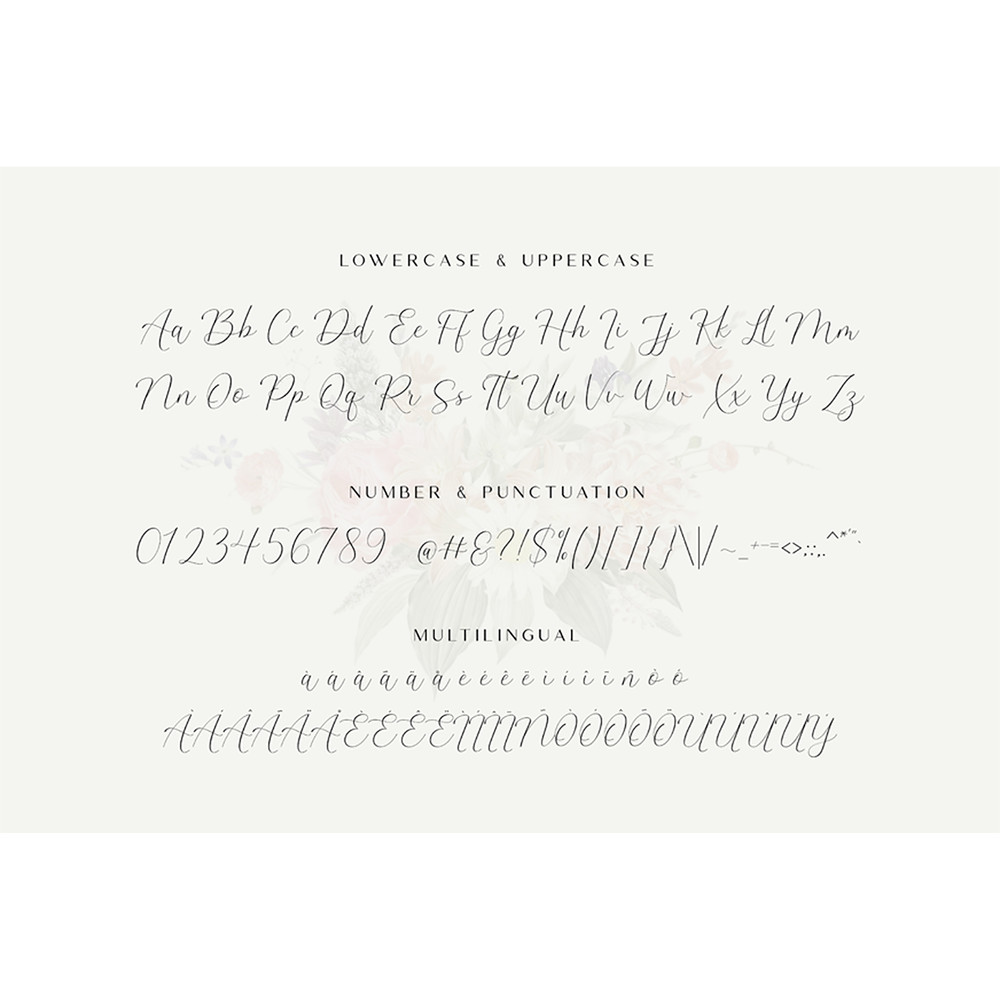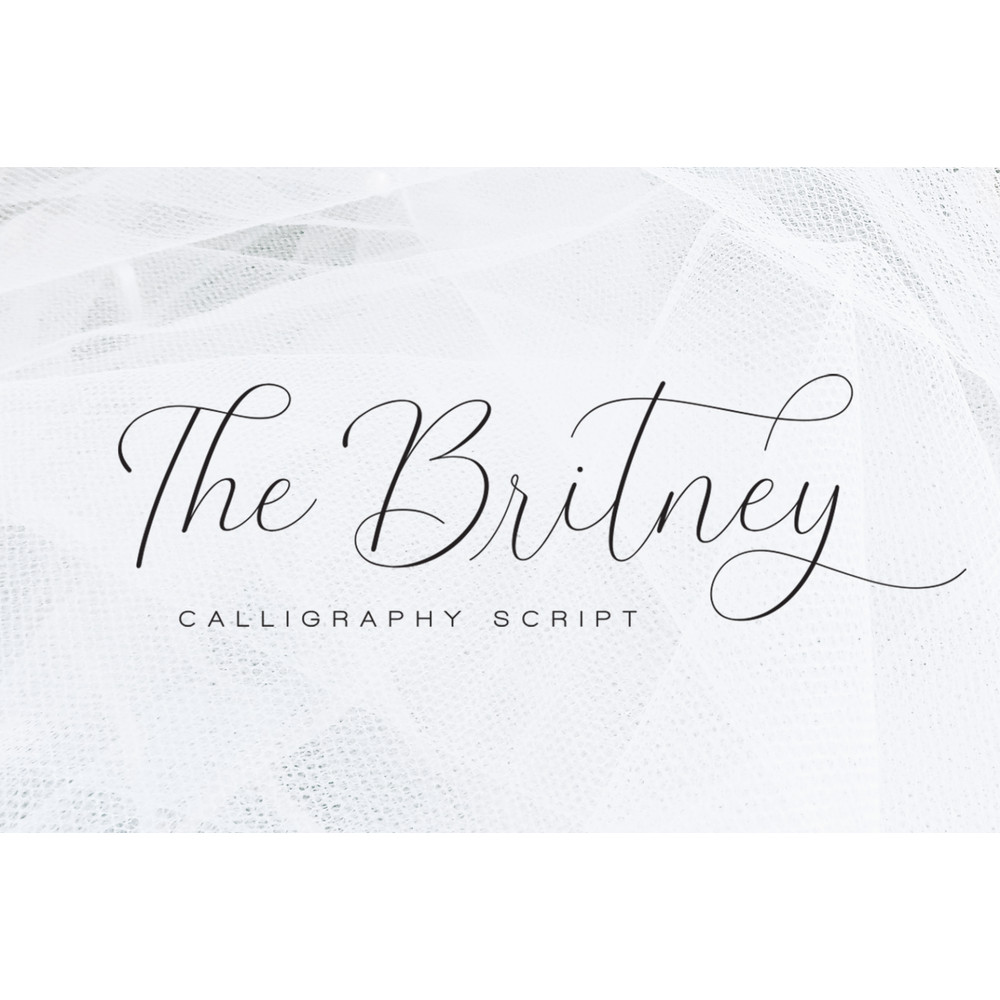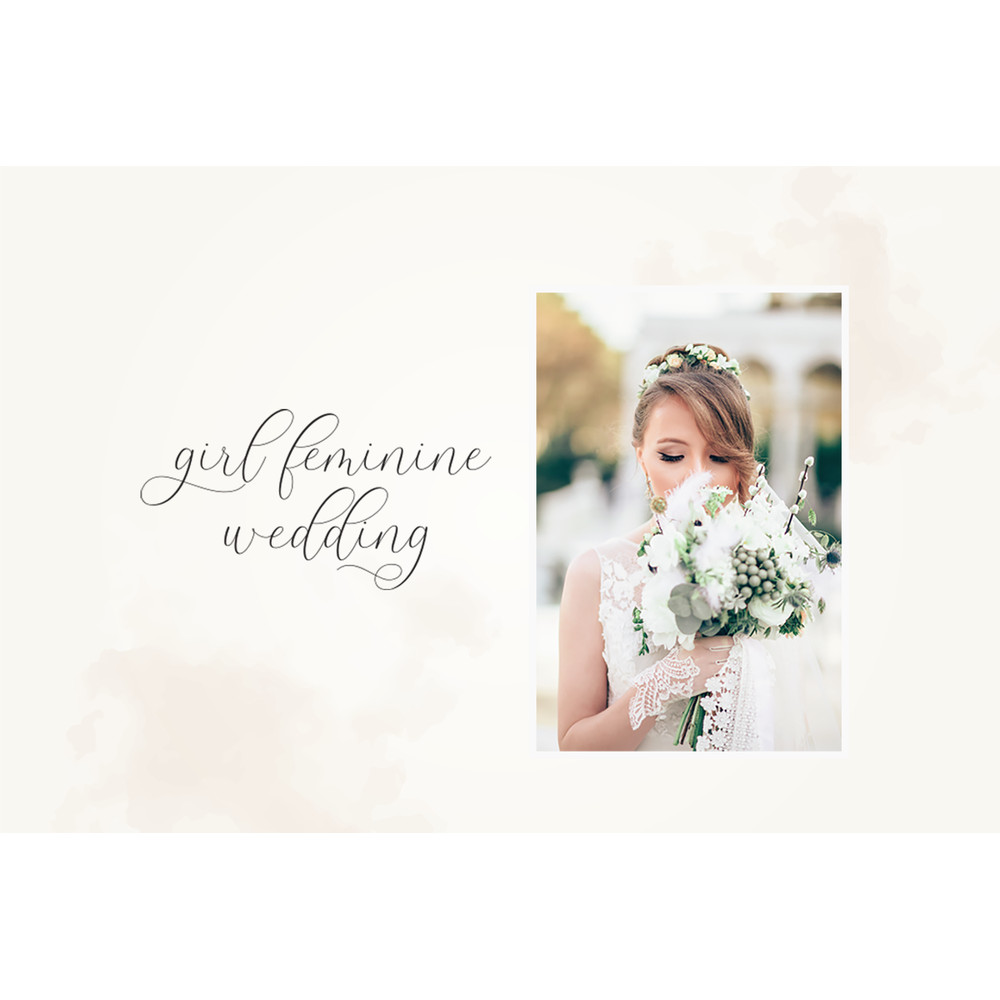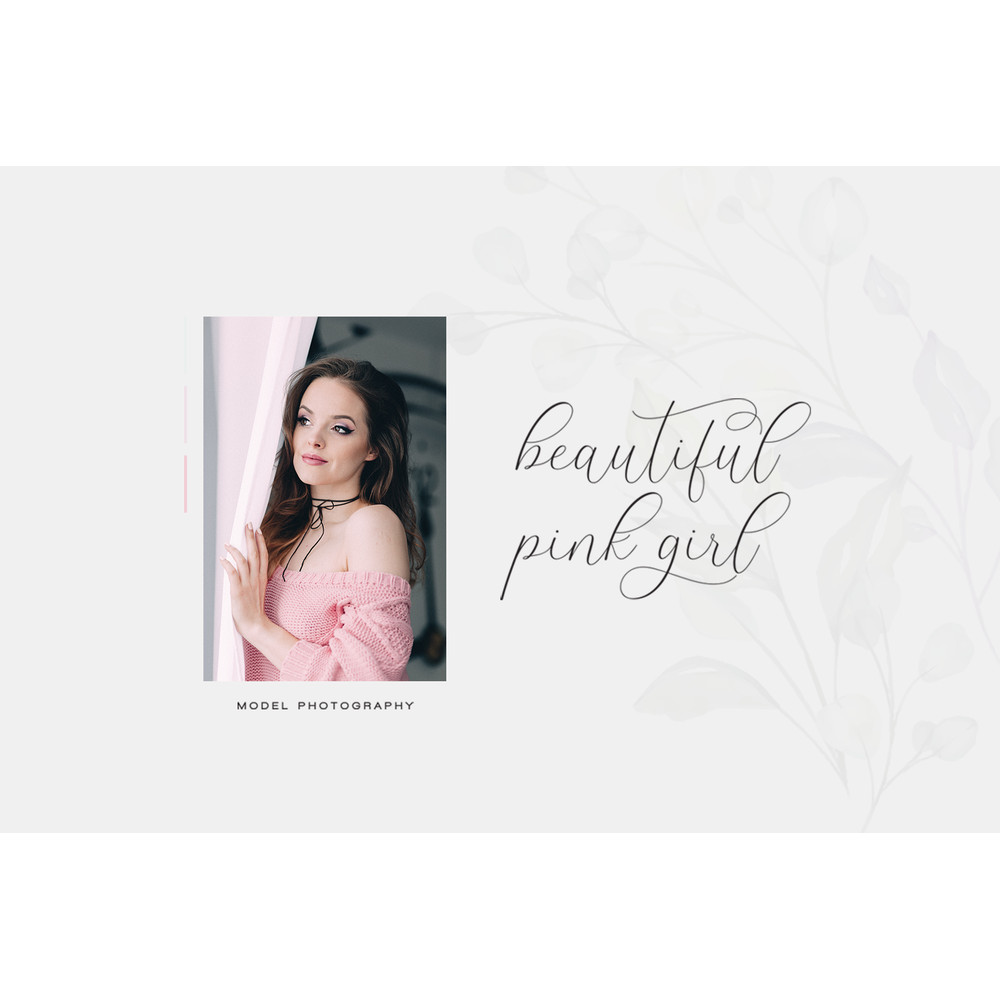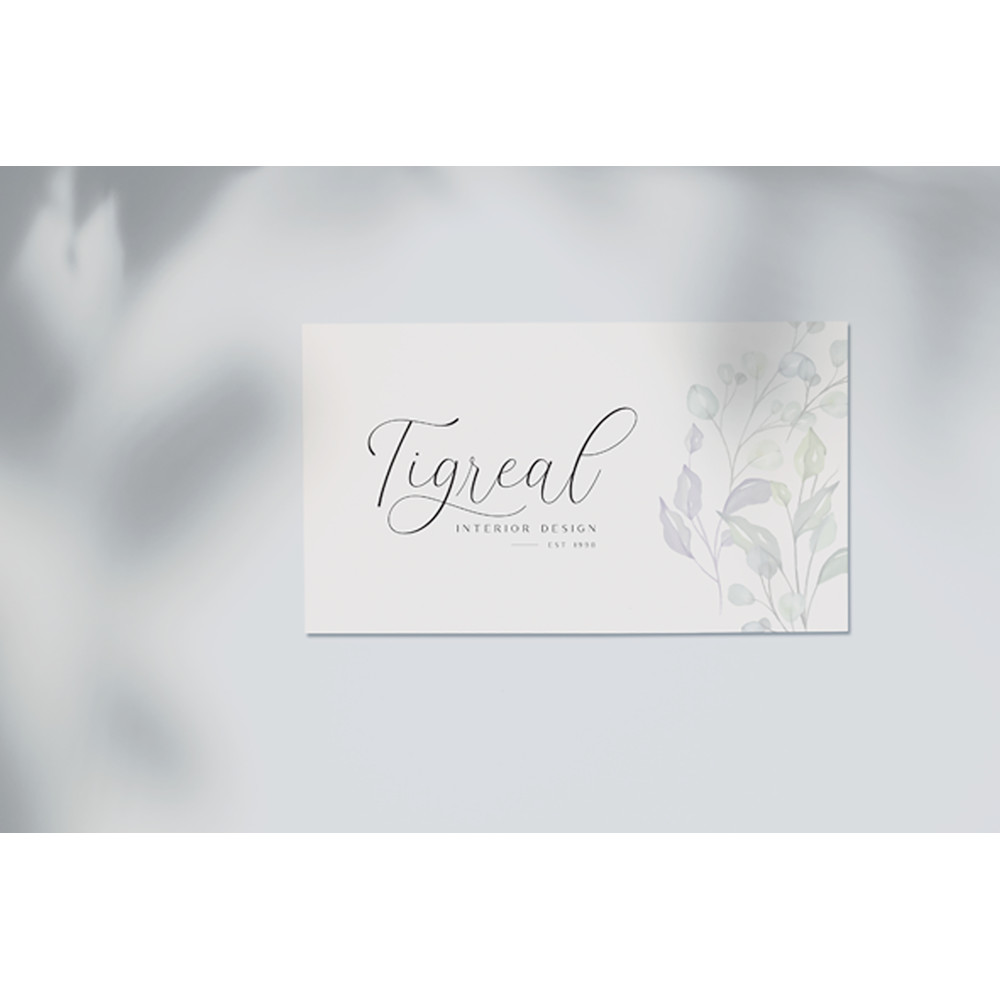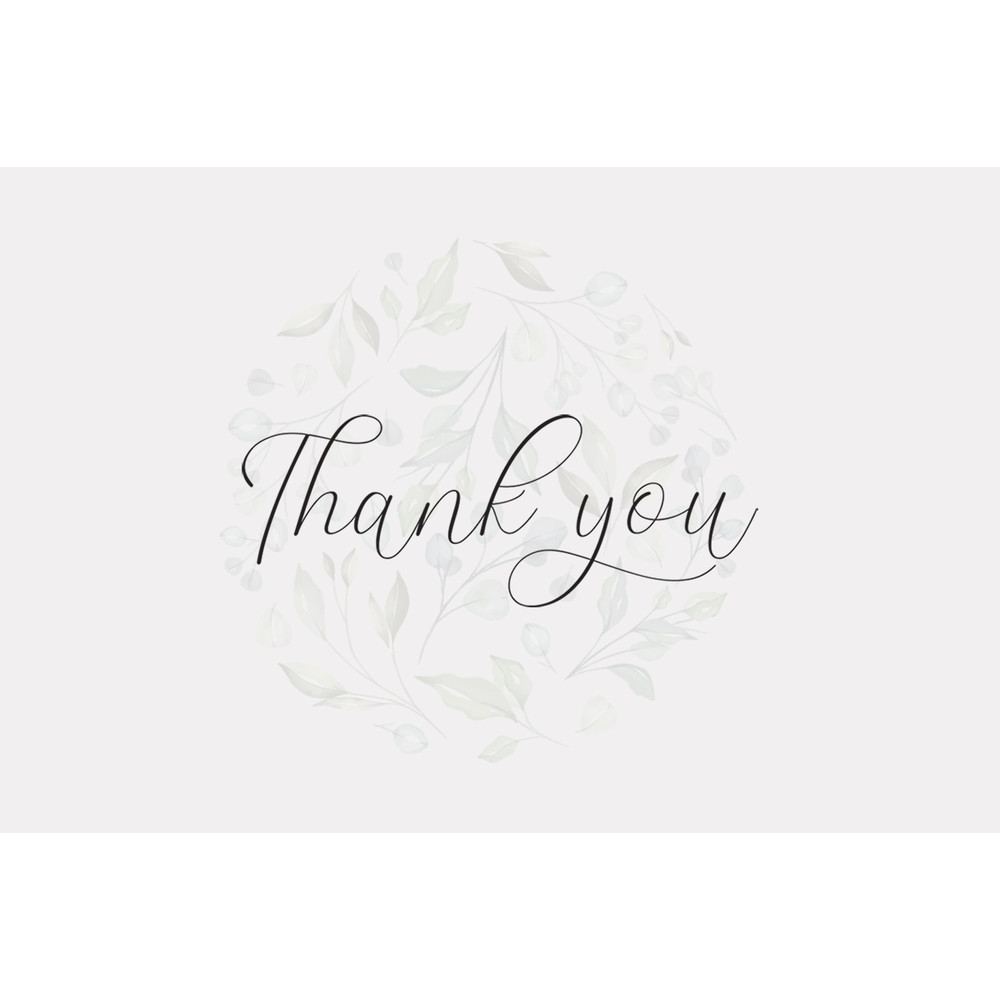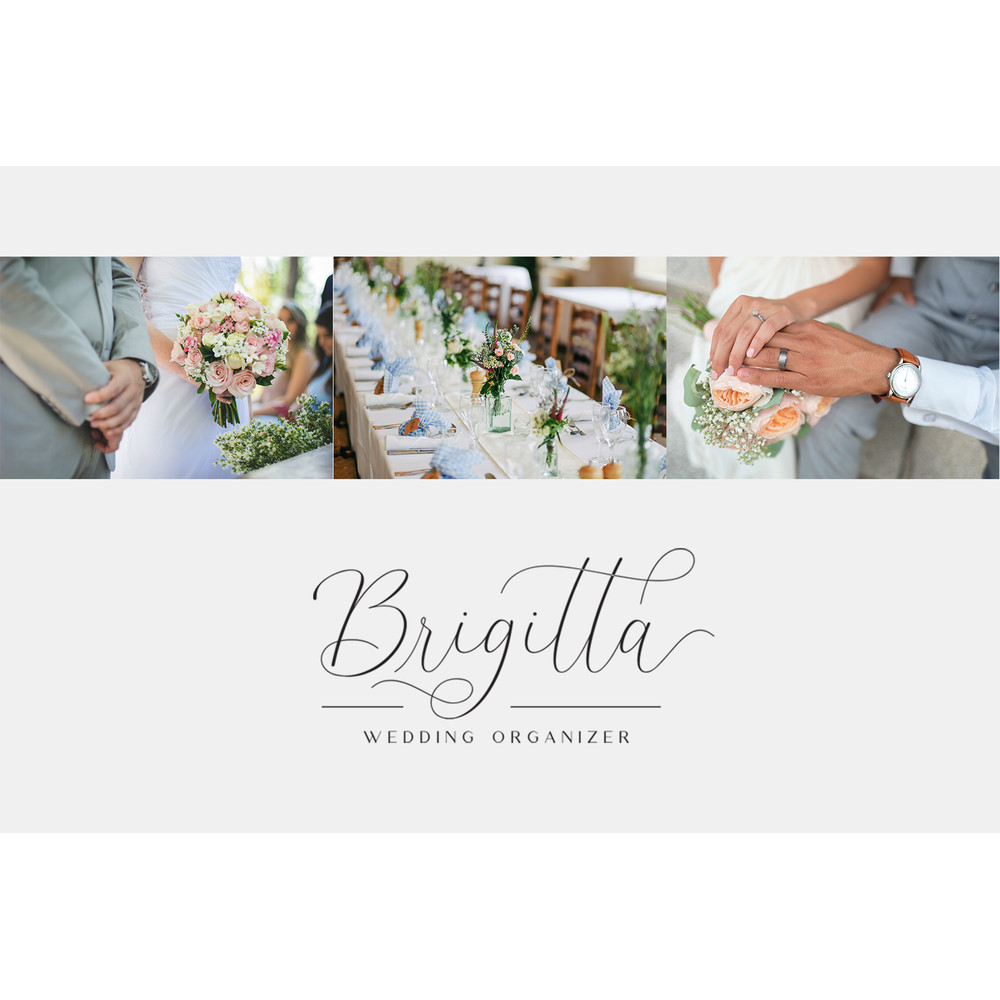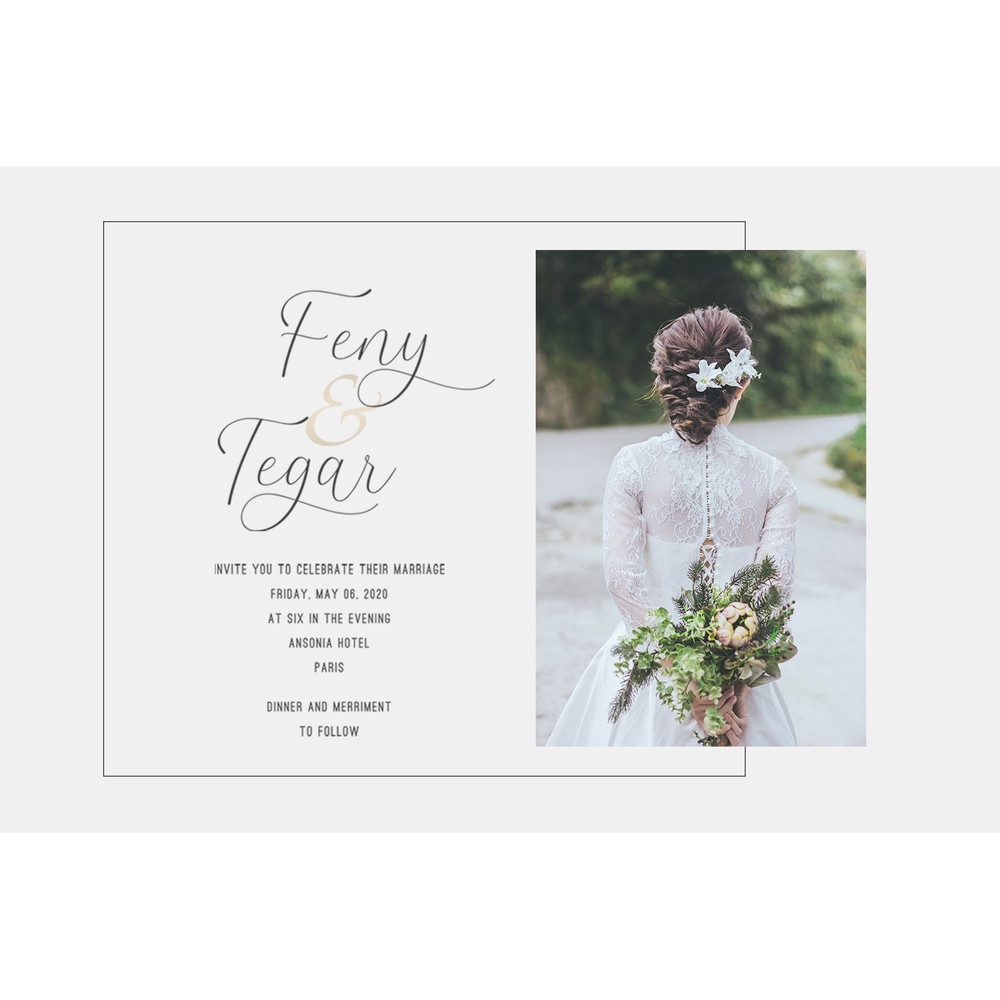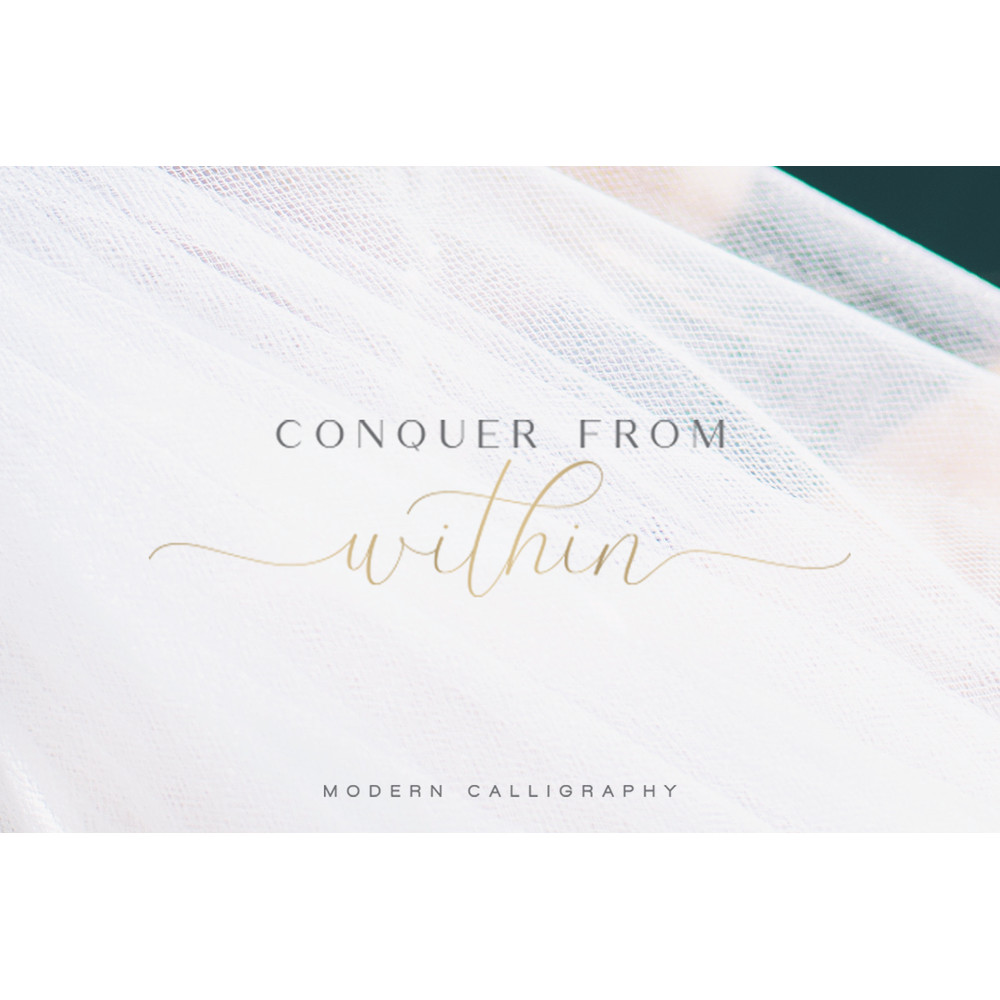
The Britney is calligraphy font, every single letters have been carefully crafted to make your text looks beautiful. With calligraphy script style this font will perfect for many different project ex: logo, photography, watermark, quotes, blog header, poster, wedding, branding, logo, fashion, apparel, letter, invitation, stationery, etc.
The Britney was built with OpenType features and includes beginning and ending swashes, alternate swash characters for most lowercase letters, numbers, punctuation, alternates, ligatures and it also supports other languages 🙂
– More than 100 Ligatures, Swash and Alternate
– More than 100 of glyphs
– Ligatures & Stylistic Alternate
– Multilingual Support